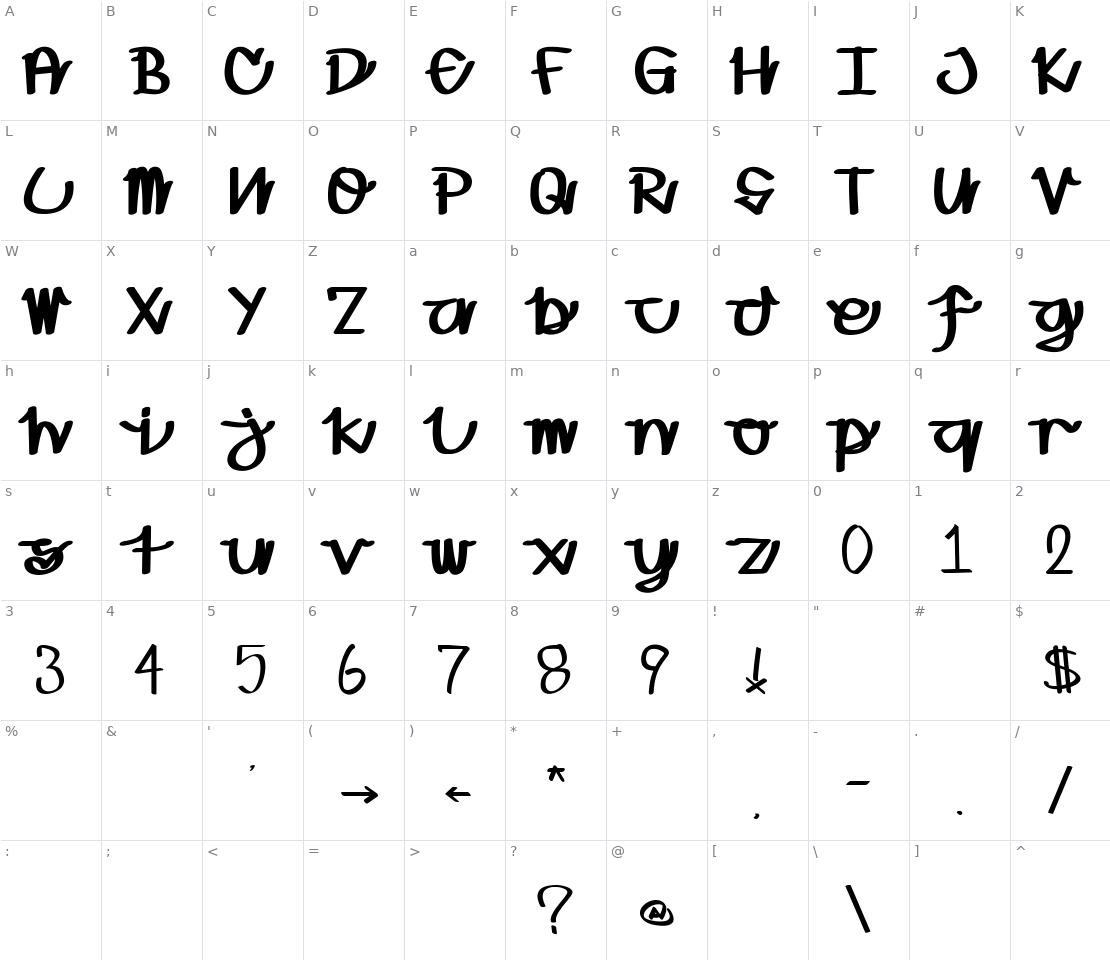
Calligraffiti
Calligraffiti from CrazeCo.com.au blends the loose, flowing movement of calligraphy with the raw energy of street-style graffiti lettering. The strokes are bold and expressive but still readable, carrying a hand-sprayed quality that feels urban and spontaneous rather than carefully composed. Best used for headlines, posters, and branding where you want something that reads as authentic street art rather than a polished script.